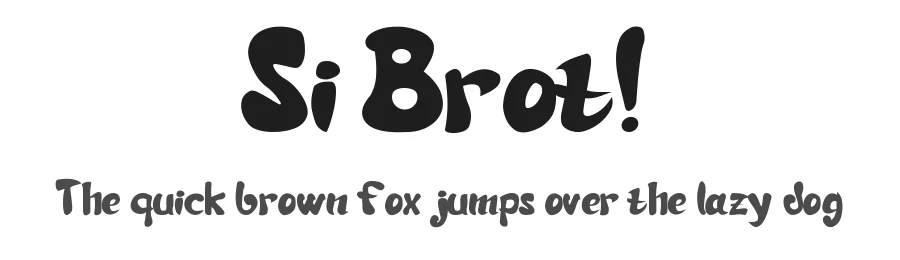
About Selectric Script Font
Selectric Script is a decorative font designed by Aleksandar Stevanov. It includes 106 glyphs, a regular weight, TTF (TrueType) format, and 107 languages. Selectric Script is free to download; check the license details on this page before commercial use. Decorative fonts like Selectric Script work best for logos, posters, packaging, and standout headlines.
Selectric Script Font is a decorative font that shines as a display or heading face. Pair it with a clean sans-serif or serif font for body text β the contrast creates a clear hierarchy while the two styles stay balanced and easy to read.
Selectric Script Font
Selectric Script Font is a decorative typeface by Aleksandar Stevanov, ideal for logos, invitations, branding, and creative projects.